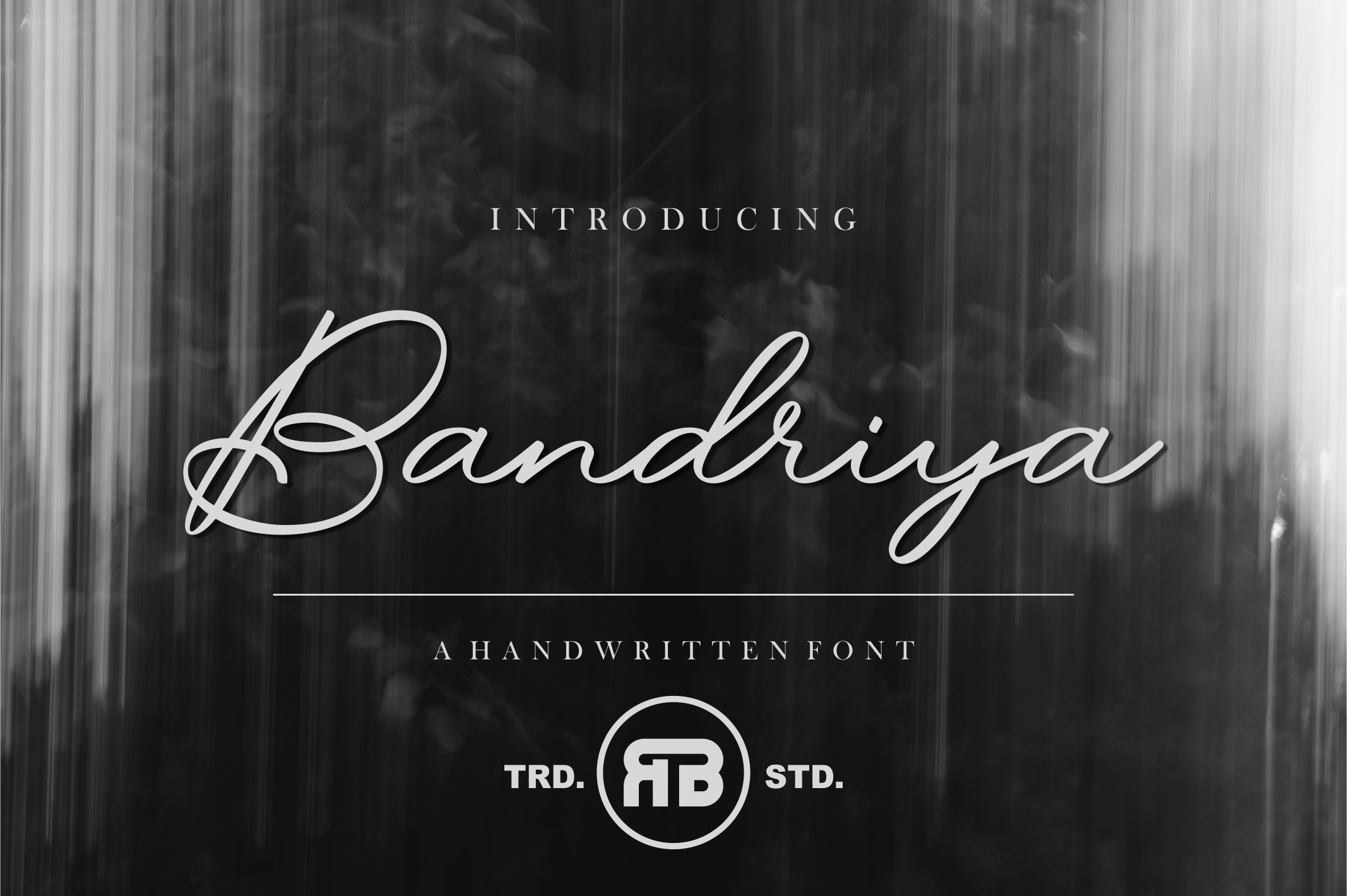
Introducing Bandriya smooth and authentic handwritten font a must-have for any handwritten font collection. Perfect for: elegant branding, wedding stationery, romantic book cover designs, classy packaging, album covers, handwritten quotes, greeting cards, unique social media posts and more. This demo font is for PERSONAL USE ONLY! But any donation are very appreciated. Paypal account for donation : https://PayPal.Me/payrgbstudio Link to purchase full version and commercial license : https://crmrkt.com/gjero0 For Extended License or Corporate License Please Reach Us on email : rgbstudio71@gmail.com if you need something! Happy Designing! Thank you. Regards, RGB Studio |